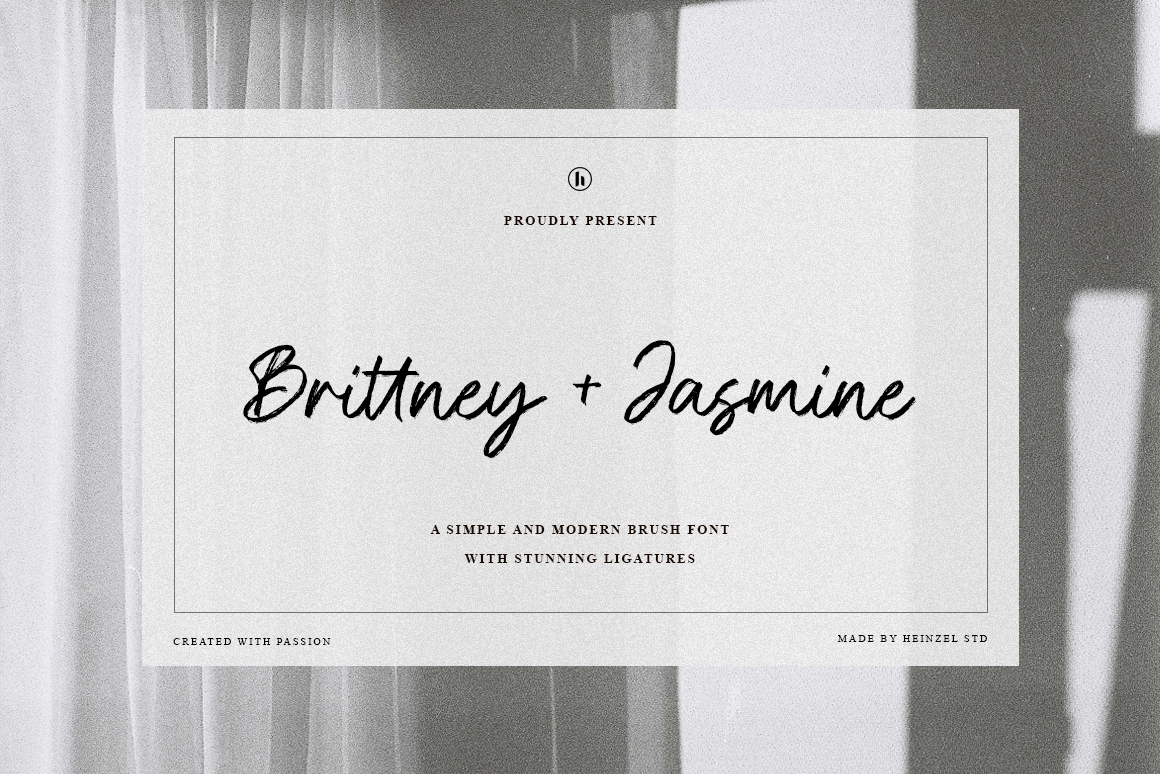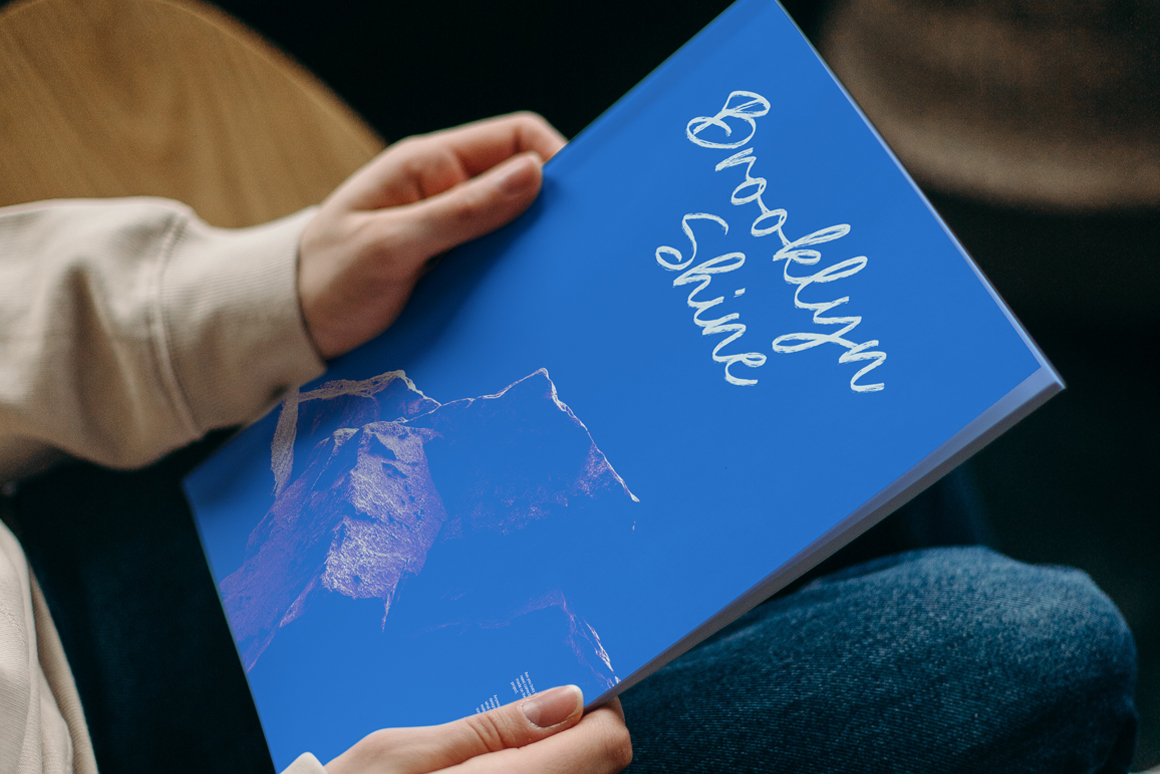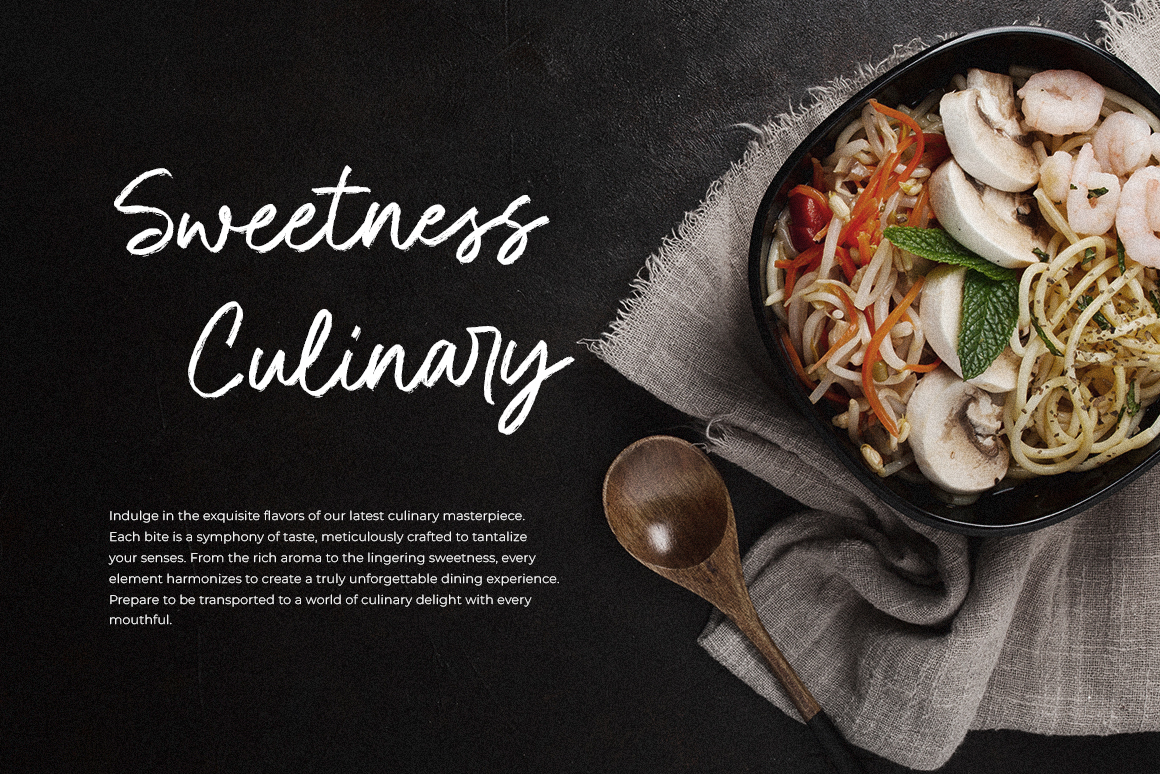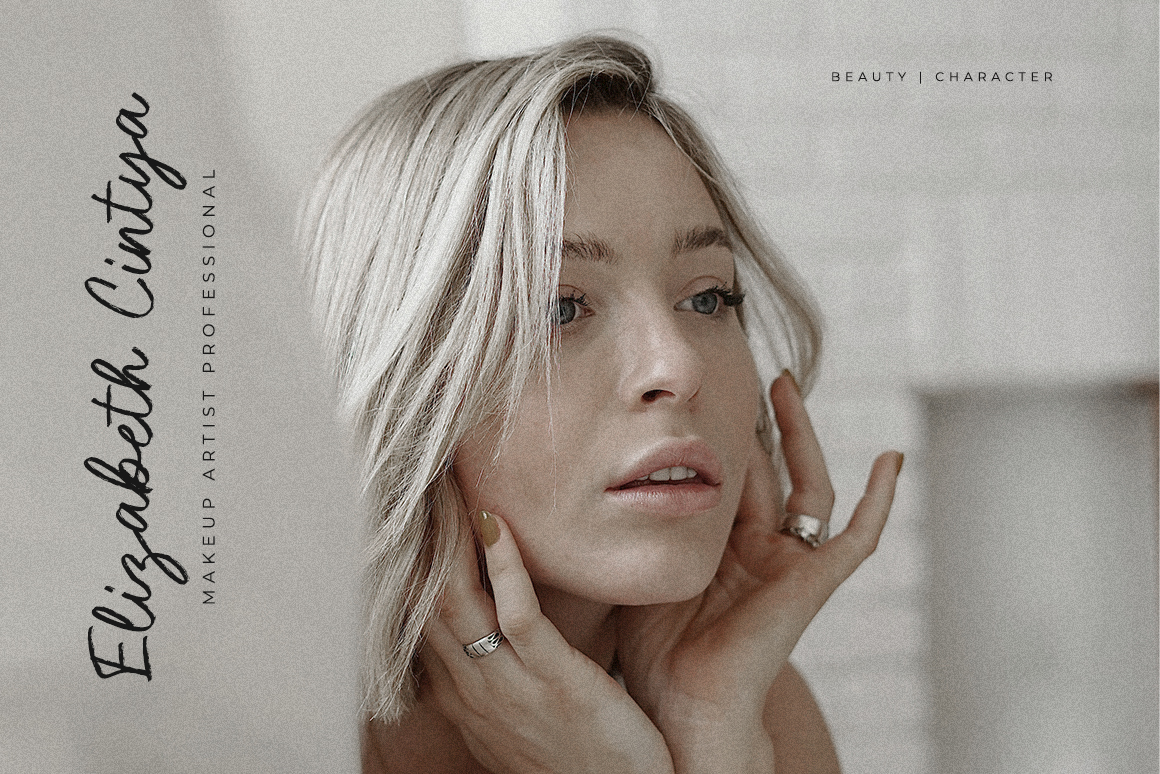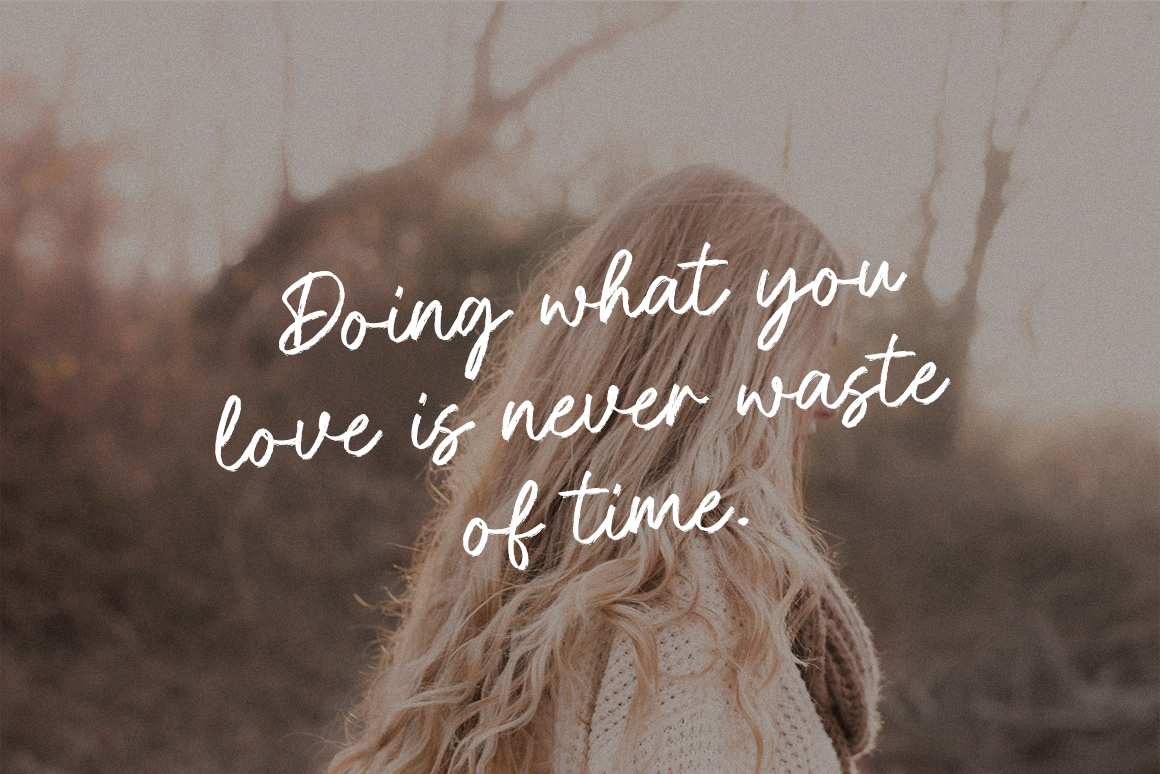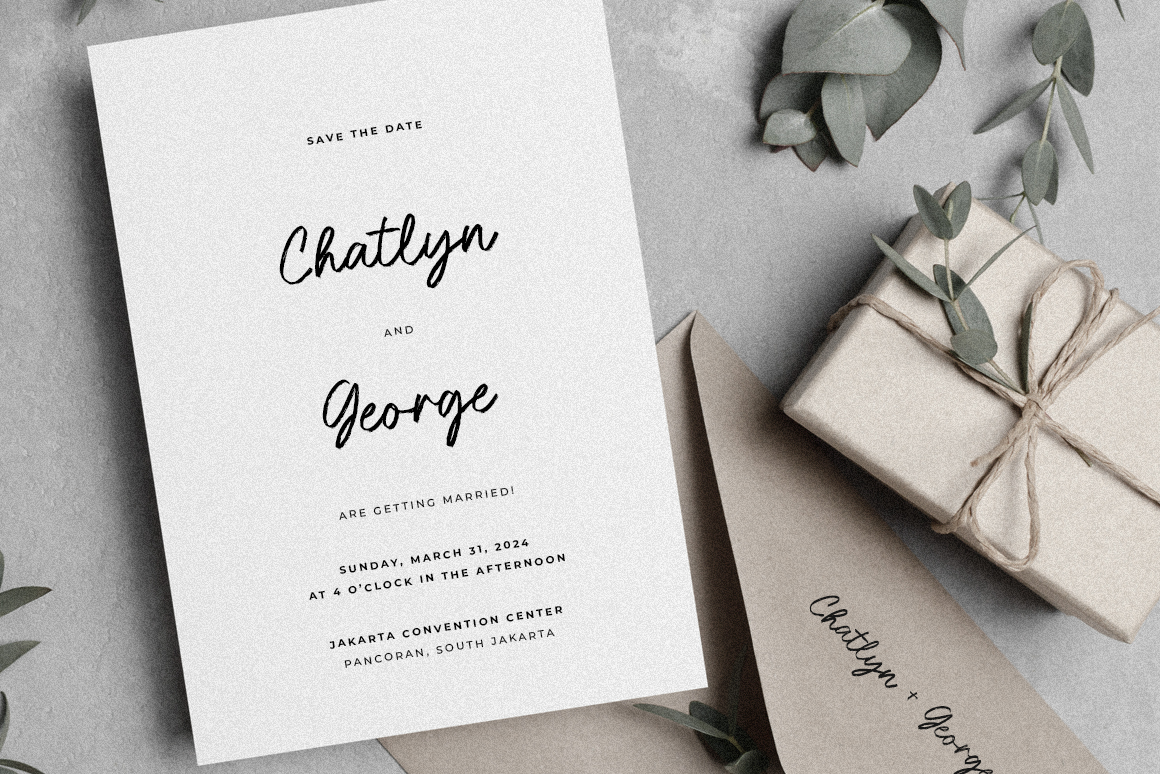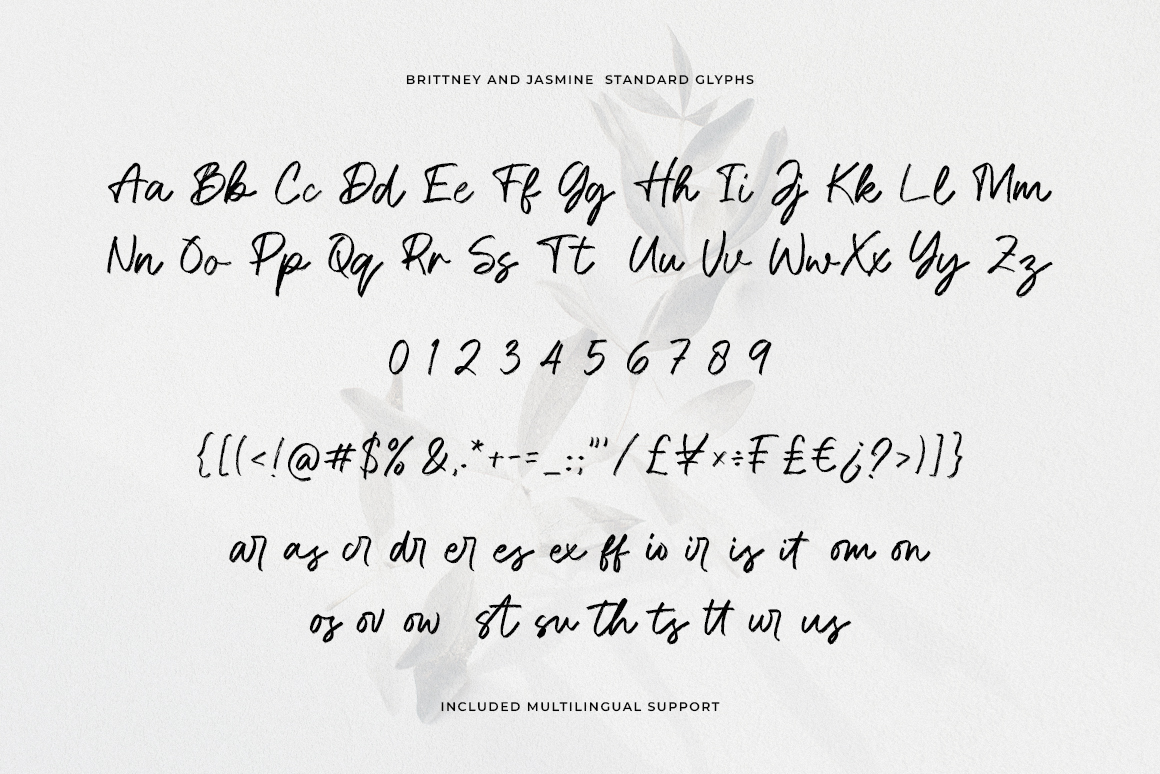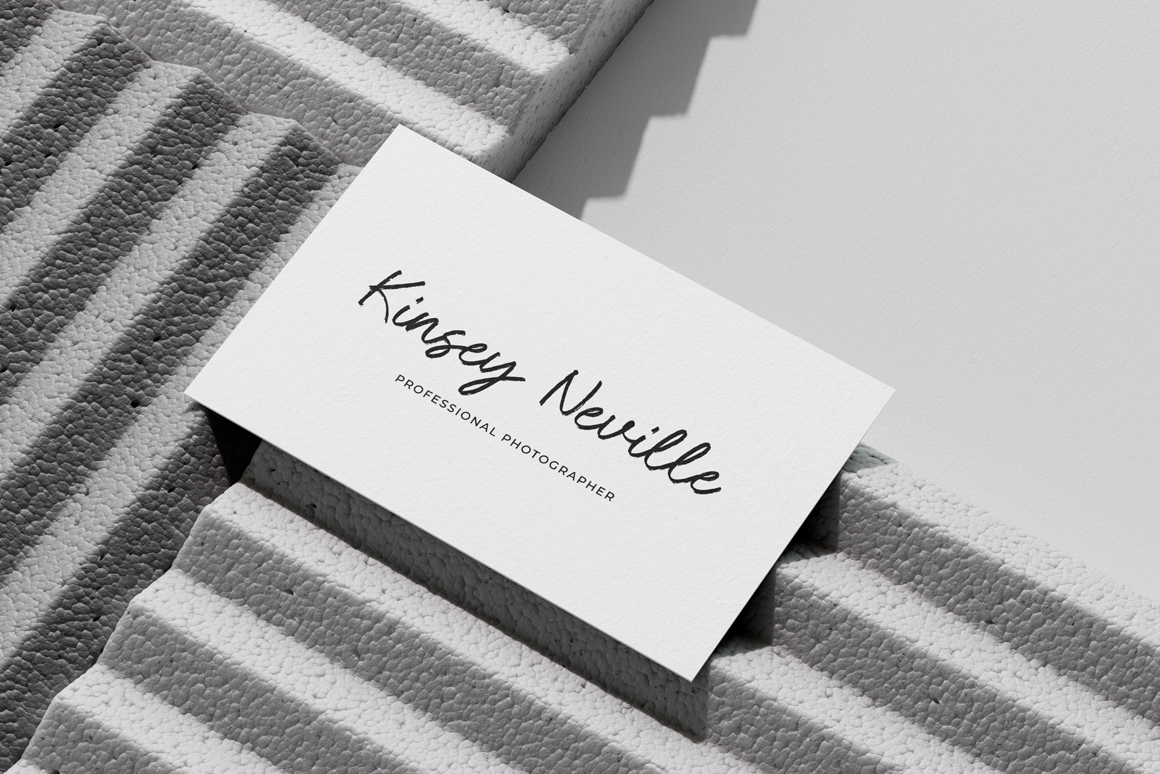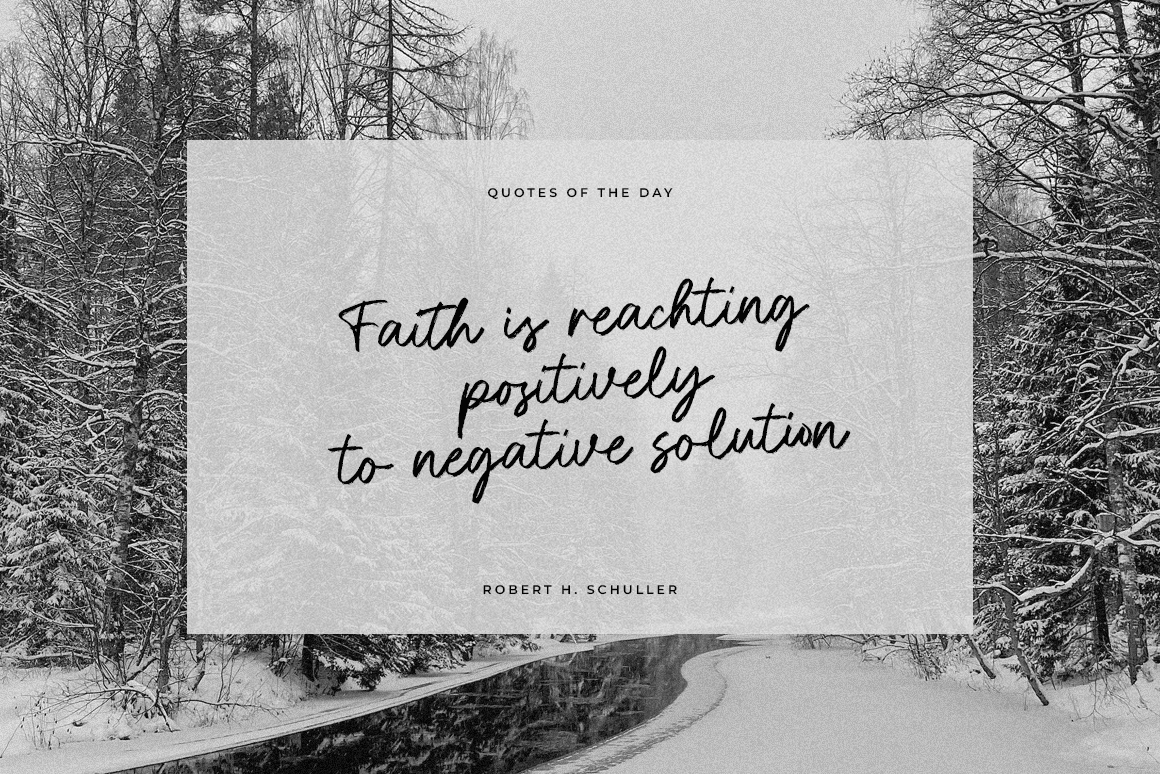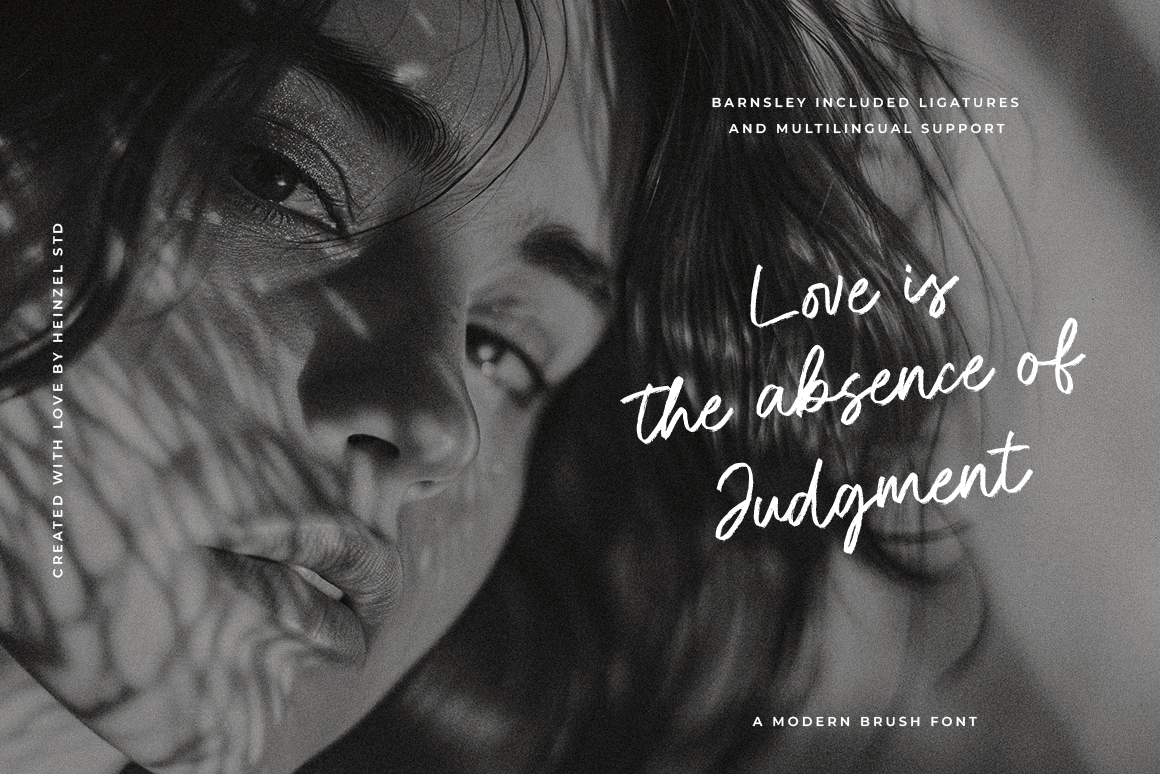
Brittney and Jasmine Font
Brittney and Jasmine is a modern brush script font that combines bold strokes with a touch of elegance. Designed to capture the dynamic feel of hand-lettering, this font delivers a stylish and contemporary look that's perfect for branding, logos, invitations, social media graphics, and more. With its natural brush texture and fluid letterforms, Barnsley Brush adds personality and flair to any design project, making your words stand out with effortless charm.